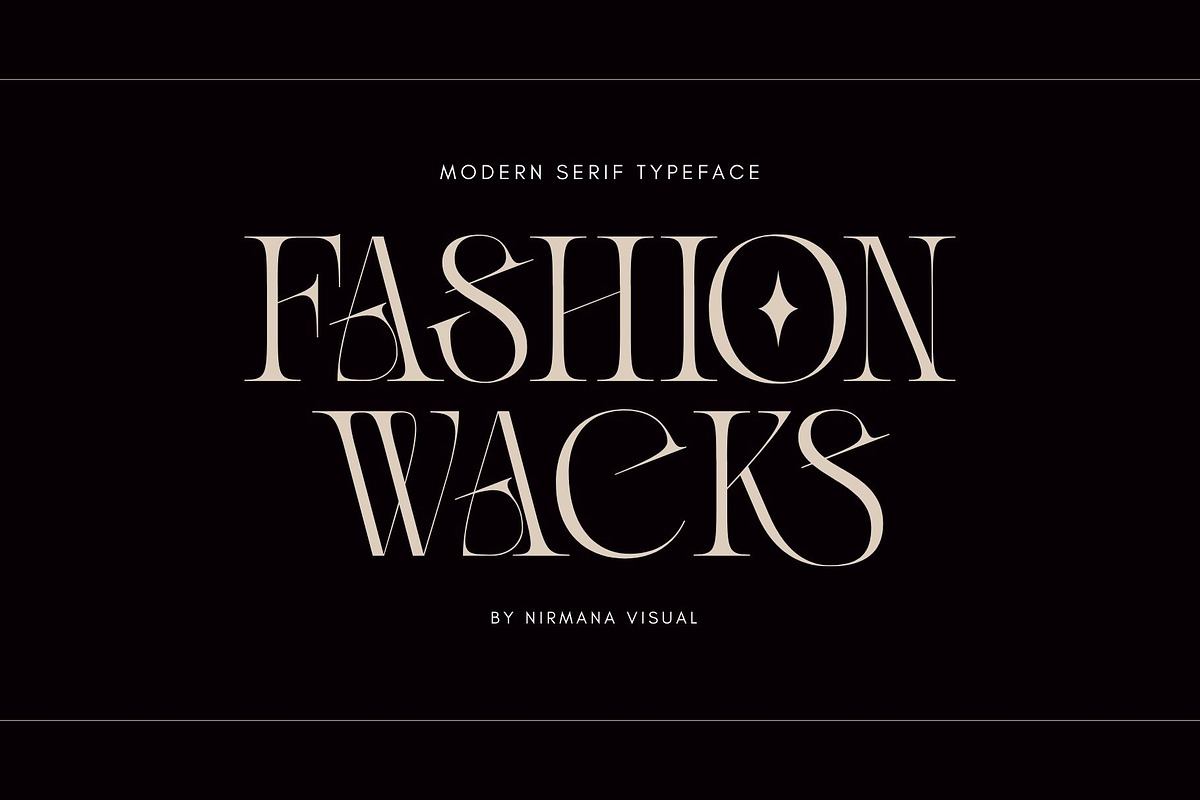
Elevate your design projects with Fashion Hacks Elegant Display Font Free Download, a contemporary serif typeface inspired by the Art Nouveau era. This font exudes sophistication and style, making it perfect for fashion branding, editorial designs, luxury product packaging, and elegant logos. Its unique letterforms offer beautiful typographic harmony, adding a touch of class to any creative endeavor. Download it for free to explore its features in personal projects. For commercial use, please ensure you purchase the appropriate license. Enhance your typography with the refined elegance of Fashion Hacks Elegant Display Font Free Download